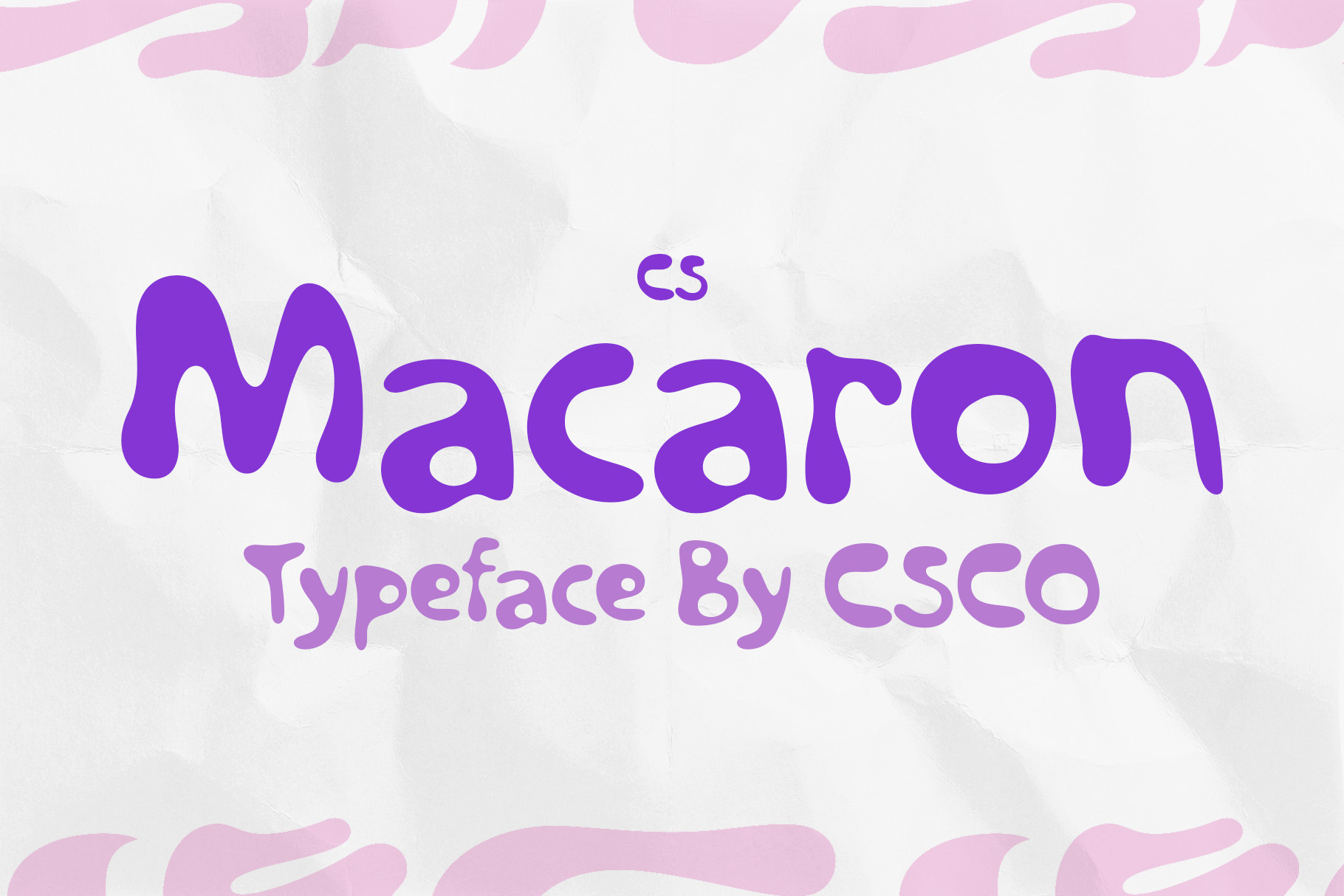
CS Macaron – Bubble Font
CS Macaron – A Playful and Funky Bubble Font
A Modern Display Font with a Bubble Style CS Macaron is a fun and lively display font that captures attention with its soft, rounded, and bubbly letterforms. Designed to bring a cheerful and energetic feel, its bold yet smooth structure creates a sense of warmth, friendliness, and excitement, making it perfect for designs that need a joyful and inviting touch.
Cute, Funky, and Full of Personality With its plush, inflated look, CS Macaron exudes a playful and modern charm. The gentle curves and thick structure add a sense of fun and whimsy, making it ideal for brands and projects that want to stand out with a youthful and dynamic appeal.
Perfect for Creative and Eye-Catching Designs CS Macaron is designed for projects that need a bold and joyful impact. Whether you’re working on branding, posters, product packaging, merchandise, or social media graphics, this font enhances the overall aesthetic with its fun, bouncy, and energetic presence.
Versatile for Modern and Fun Visuals Despite its quirky and lively appearance, CS Macaron maintains excellent legibility and versatility. It is a great choice for logos, headlines, editorial layouts, and creative projects where a friendly and engaging tone is needed. Its bubbly, soft structure ensures that every word feels inviting, vibrant, and full of character.